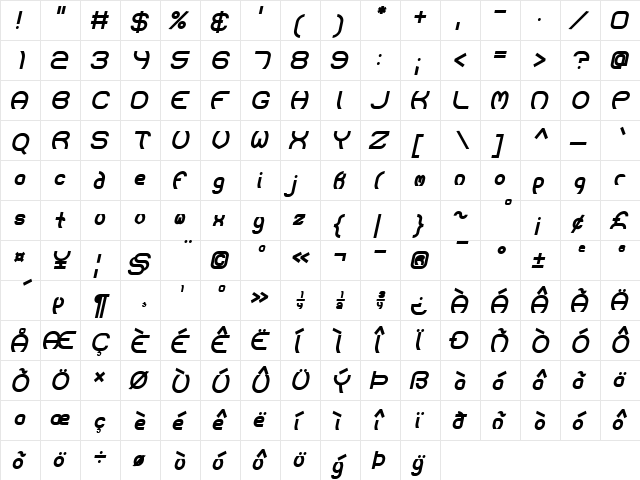
Majistir Bold Italic
Design Context for Majistir Typeface
Majistir is a composed and adaptable typeface that performs quietly and consistently across a wide range of design contexts. The slanted form adds forward momentum and visual energy. The heavy weight commands attention and anchors typographic hierarchies.
Pro Tip: Try Majistir for annotation and caption copy alongside an upright companion — the contrast in angle creates a dynamic but ordered typographic system.